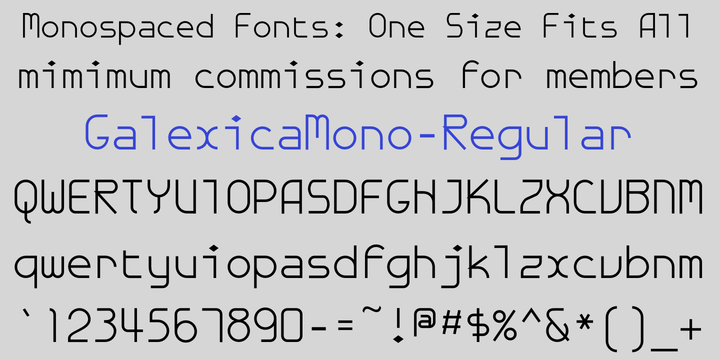
• Galexica Mono™
GalexicaMono was an attempt to create a futuristic typewriter font, which may be an oxymoron. It comes in two weights, plain and bold. For a variant of the design that is not monospaced, see Galexica.